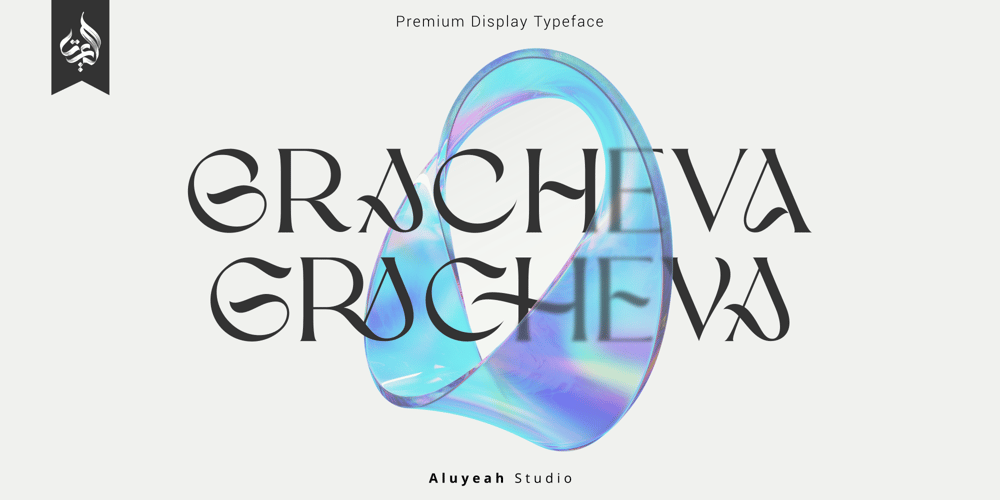
Al Gracheva Font Family was designed by Linggar Sundoro and published by Aluyeah Studio. Al Gracheva contains 1 styles and family package options. Grace and Cheval, the inspiration for the name Gracheval. The word “cheva” comes from Old French cheval (horse) and literally means “horsemanship”. Gracheva gives the impression of elegance and powerful like a horse galloping on the shore.Gracheva is a premium display typeface that conveys a charming elegance but powerful like a graceful wild horse that can be applied to many areas of design. Coming with 130+ stunning and super easy to use alternates and ligatures.Very suitable for apps, magazine, headline, website, ads, product package and all type of design project you have. Features:OpenType supportMultilingual support (15 languages)PUA EncodedSuper Easy to Use alternates – You can easily call alternates using special combination like A.2 S.2 A.E R.A etc. To get results like the preview just type G.3R.AC.HE.2V.2A.4